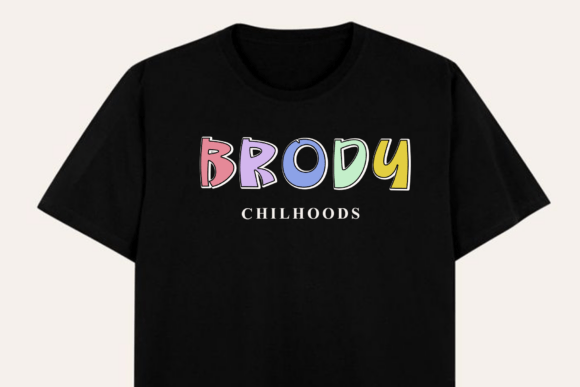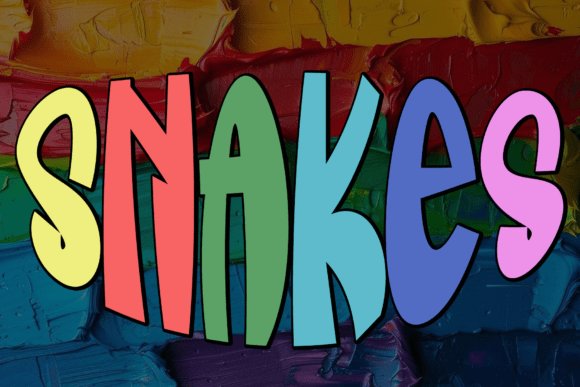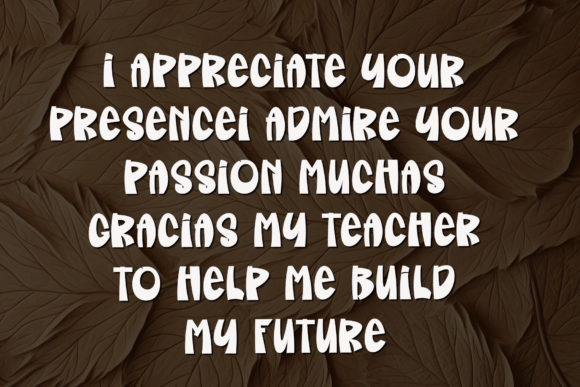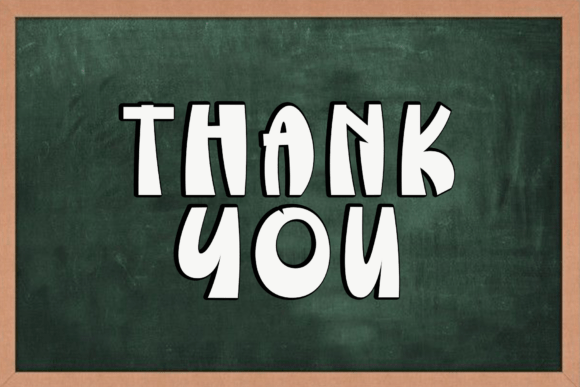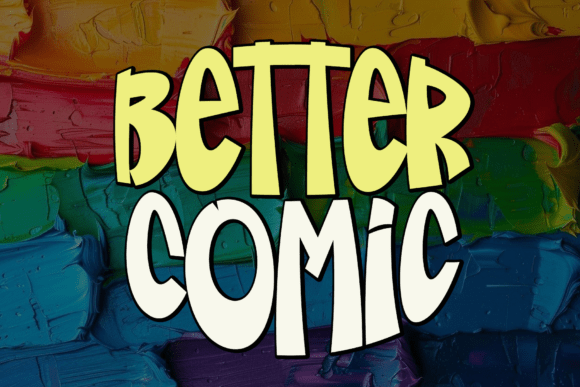
Better Comic Font: Elevate Your Designs with a Cool and Unique Display Font
Are you tired of using the same old fonts in your designs? Do you want to add a touch of personality and whimsy to your creative projects? Look no further than the Better Comic font! This cool and unique display font is sure to take your designs to the next level and leave a lasting impression on your audience.
What is Better Comic Font?
Better Comic is a modern take on the classic comic book font. With its bold lines, playful curves, and energetic vibe, this font is perfect for designers and crafters who want to add a dash of fun and excitement to their work. Whether you’re creating a logo, poster, or social media graphic, Better Comic font is sure to make your design stand out from the crowd.
Key Features of Better Comic Font
• Unique and playful design: Better Comic font boasts a one-of-a-kind design that’s sure to grab attention. Its bold lines and curves give it a dynamic and energetic feel that’s perfect for creative projects.
• Highly versatile: This font is perfect for a wide range of design applications, from logos and posters to social media graphics and more.
• Easily readable: Despite its bold and playful design, Better Comic font is surprisingly easy to read, making it perfect for headlines, titles, and short paragraphs of text.
Why Use Better Comic Font?
So why should you use Better Comic font in your designs? Here are just a few reasons:
• Add personality to your designs: Better Comic font is the perfect way to add a touch of personality and whimsy to your designs. Its unique design ensures that your work will stand out from the crowd and leave a lasting impression on your audience.
• Create engaging headlines: With its bold and playful design, Better Comic font is perfect for creating engaging headlines that grab attention and draw the reader in.
• Perfect for creative projects: Whether you’re working on a logo, poster, or social media graphic, Better Comic font is the perfect choice for creative projects that require a unique and eye-catching design.
How to Use Better Comic Font
Using Better Comic font in your designs is easy! Here are a few tips to get you started:
• Use it as a display font: Better Comic font is perfect for use as a display font, making it ideal for headlines, titles, and short paragraphs of text.
• Experiment with different colors: Better Comic font looks great in a variety of colors, so don’t be afraid to experiment and find the perfect hue for your design.
• Pair it with other fonts: Better Comic font pairs well with a variety of other fonts, making it easy to create a unique and visually appealing design.
In conclusion, Better Comic font is a cool and unique display font that’s perfect for designers and crafters who want to add a touch of personality and whimsy to their creative projects. With its bold lines, playful curves, and energetic vibe, this font is sure to take your designs to the next level and leave a lasting impression on your audience. So why wait? Add Better Comic font to your design toolkit today and start creating engaging and eye-catching designs that stand out from the crowd!
Better Comic is a cool and unique display font. Add it to your creative projects and enjoy the results!